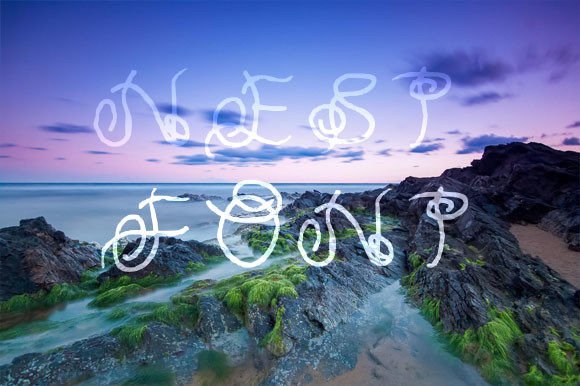
About Nest Font
**Introducing the Thin and Jolly Handwritten Font**
This delightful handwritten font is designed to add a touch of whimsy, elegance, and charm to your creative projects. Here’s why this thin and jolly font is the perfect choice to elevate your designs:
1. **Elegance:** Despite its thin appearance, this font exudes elegance and sophistication. It’s ideal for projects where you want to maintain a refined and graceful style.
2. **Whimsical Appeal:** The jolly and playful aspect of this font makes it perfect for adding a sense of fun and lightheartedness to your designs. It’s a versatile choice for a wide range of creative projects.
3. **Handwritten Charm:** The font’s handwritten style gives it a personal touch, making it suitable for conveying authenticity and sincerity in your designs.
4. **Versatility:** This font can be adapted to various design themes and concepts. Whether you’re working on invitations, greeting cards, posters, or branding materials, it complements a wide array of projects.
5. **Holiday Spirit:** The thin and jolly font is particularly well-suited for holiday-themed designs, such as Christmas cards, party invitations, and festive decorations. Its playful yet elegant look captures the holiday spirit beautifully.
6. **Easy Readability:** Despite its thin strokes, this font maintains excellent readability, ensuring that your message or content is easily understood by your audience.
7. **Unique Character:** The thin and jolly font stands out with its unique character. It adds a distinct quality to your designs, helping them leave a lasting impression.
8. **Customization:** You can easily customize and stylize this font to suit your specific design needs. Experiment with different colors, sizes, and effects to create the desired visual impact.
9. **Memorable Impact:** The font’s jolly and elegant combination creates a memorable impact on viewers and readers, making your projects more remarkable.
10. **Cheerful Aesthetic:** Whether you’re designing for celebrations, events, or cheerful occasions, this font’s aesthetic complements the mood perfectly.
11. **Branding:** Incorporate this font into your branding materials to infuse your brand with a sense of joy and elegance. It’s perfect for logos, business cards, and marketing materials.
12. **Social Media:** Use this font to add a touch of personality and charm to your social media posts, making your content more engaging and shareable.
13. **DIY Projects:** If you’re into DIY crafts and projects, this font can be a valuable asset for creating personalized labels, cards, and decorations.
14. **Artistic Expression:** Artists and creators can use this font to add a handwritten and artistic touch to their works, including illustrations, paintings, and digital art.
15. **Creative Freedom:** Let your creativity flow with this thin and jolly font. It offers you the freedom to experiment and create designs that stand out and make a statement.
When you choose the thin and jolly handwritten font for your projects, you’re selecting a versatile and charming typeface that brings a unique and memorable quality to your designs. Whether you’re designing for special occasions, branding, or simply want to infuse your work with a touch of elegance and playfulness, this font is your perfect companion. Explore its creative potential and elevate your creations out of the ordinary!